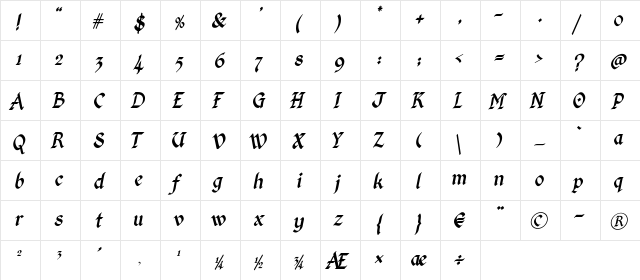
Kingthings Calligraphica Italic Calligraphica Font Preview
| Style | Calligraphica |
| Designer | Kevin King, Exeter 2003 |
Design Context for Kingthings Calligraphica Italic Typeface
Kingthings Calligraphica Italic channels the dramatic heritage of Fraktur and Gothic scripts, bringing a sense of historical gravitas to any design. The dynamic lean of this cut emphasises speed and emphasis in any layout. Its slender proportions lend an understated elegance to any composition.
A natural fit for music packaging, gothic editorial design, and any project that needs historical weight.
Font Pairing: Pair with a clean neutral sans-serif for body copy to let Kingthings Calligraphica Italic's character lead without overwhelming the composition.
Pro Tip: Reserve Kingthings Calligraphica Italic for display and logo use — pair it with a clean sans-serif for body copy to prevent the composition from feeling oppressive.